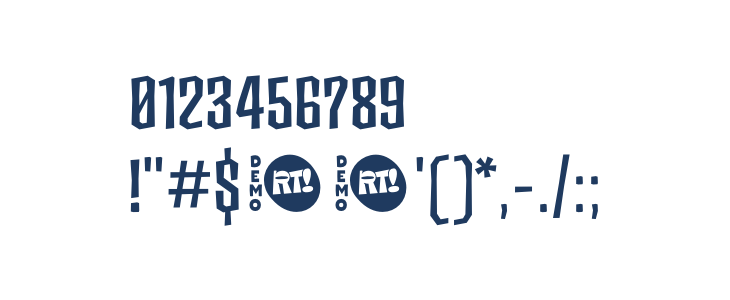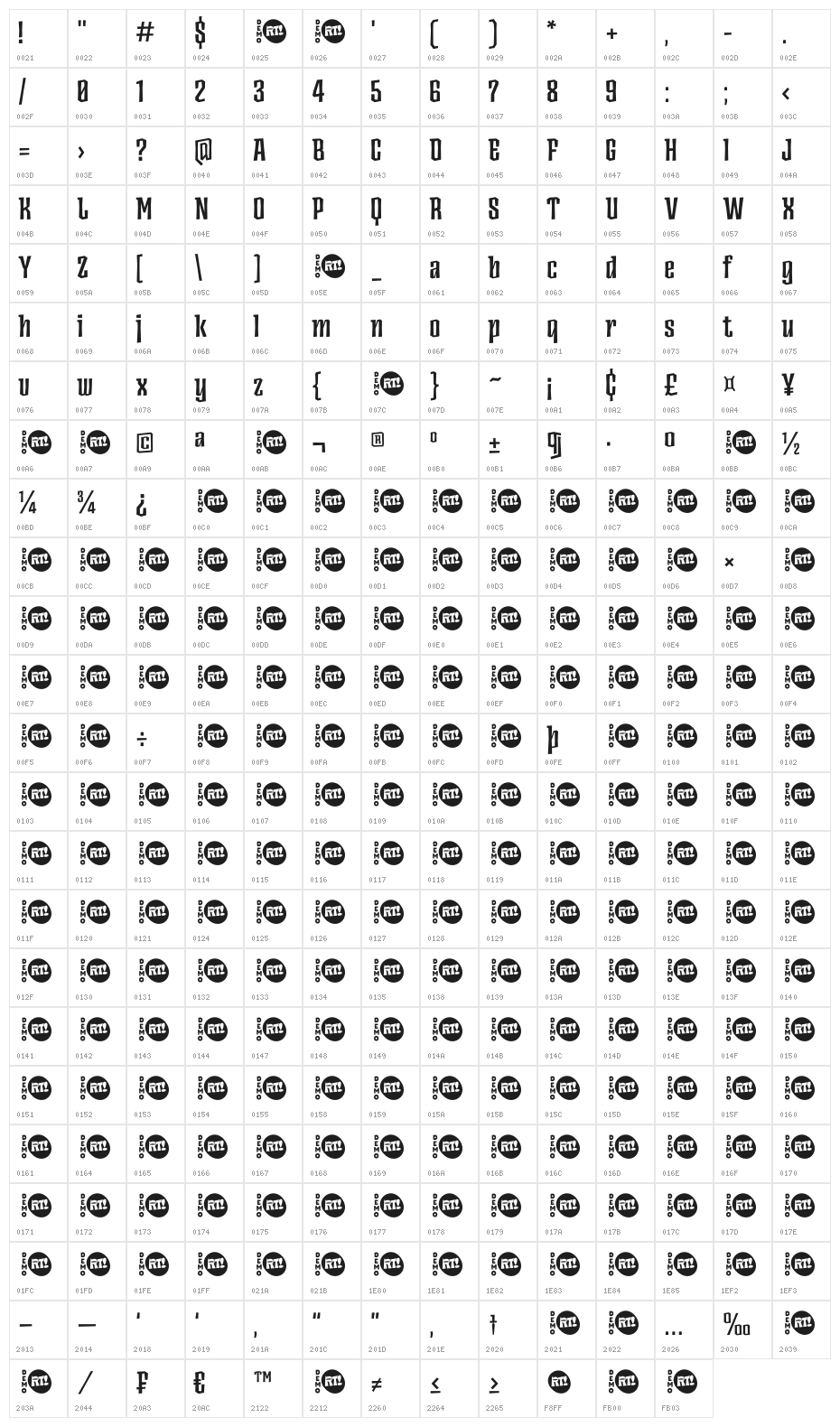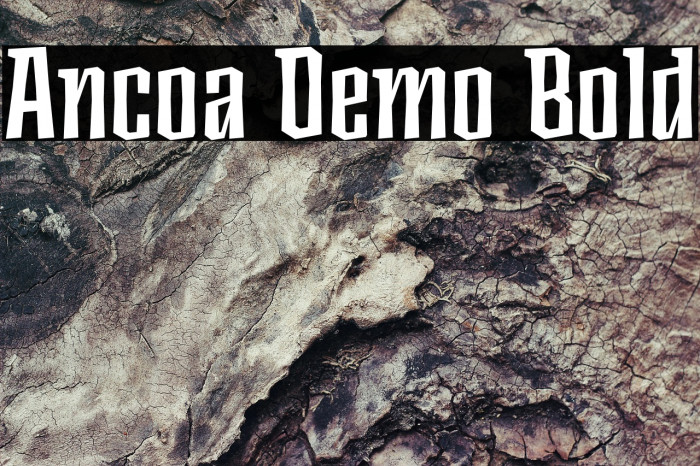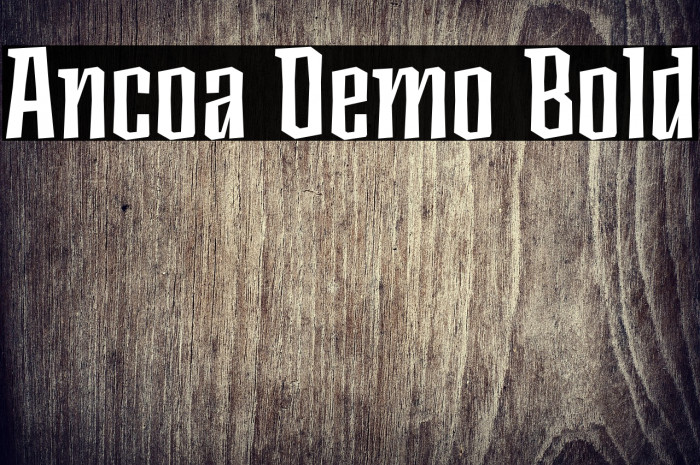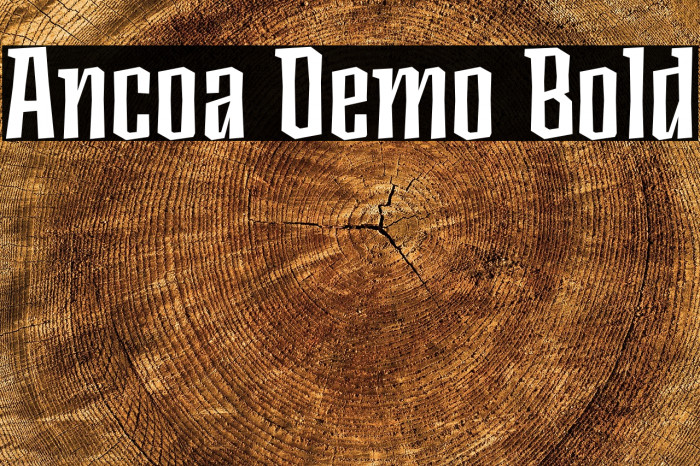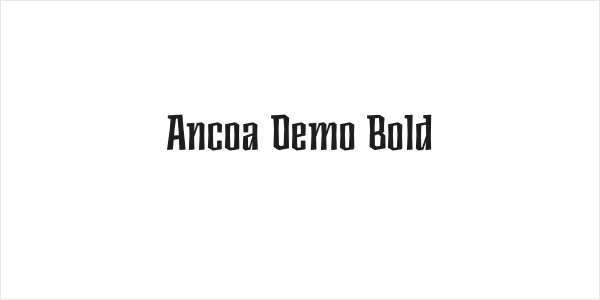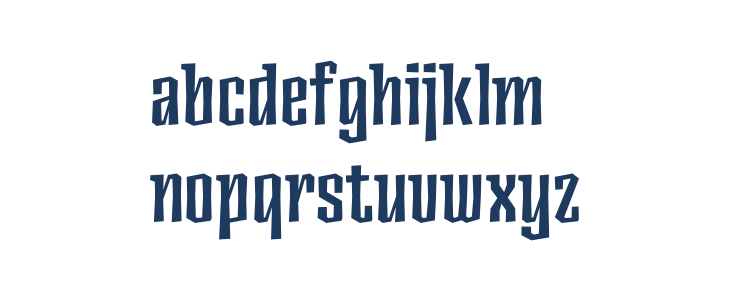
Ancoa Demo Bold Font
Ancoa Demo Bold Description
This font features a bold and striking design with a modern twist. The characters are tall and slightly condensed, giving them a commanding presence. The angular edges and sharp lines contribute to a dynamic and edgy appearance, making it ideal for attention-grabbing headlines or logos. The uppercase and lowercase letters maintain a consistent style, with a slight variation in the stroke width that adds visual interest. The numbers and special characters are designed to match the overall aesthetic, ensuring a cohesive look across all text elements.